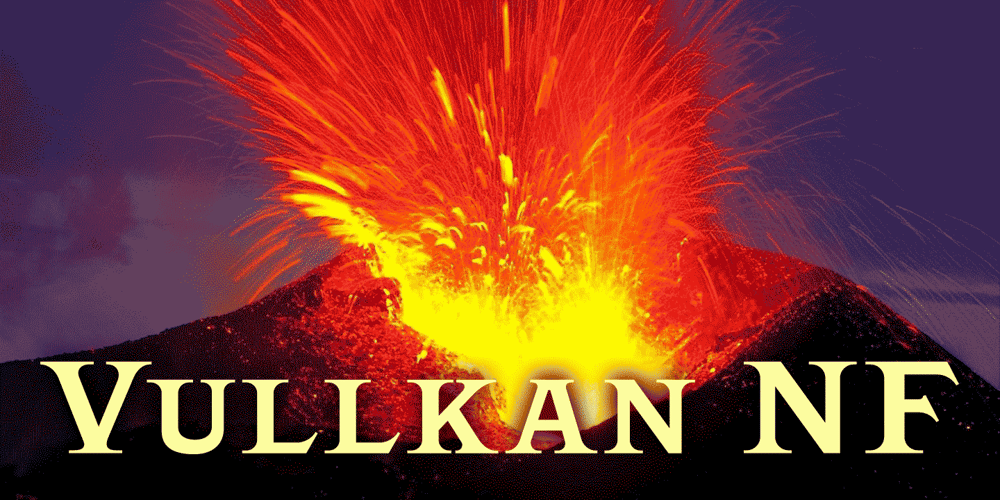
Vullkan NF Font Family was designed by Nick Curtis and published by Nick’s Fonts. Vullkan NF contains 1 styles and family package options. Live long and prosper. Barnhart Brothers and Spindler. 1884. Originally named Vulcan. Enough said. Both versions support the Latin 1252, Central European 1250, Turkish 1254 and Baltic 1257 codepages.